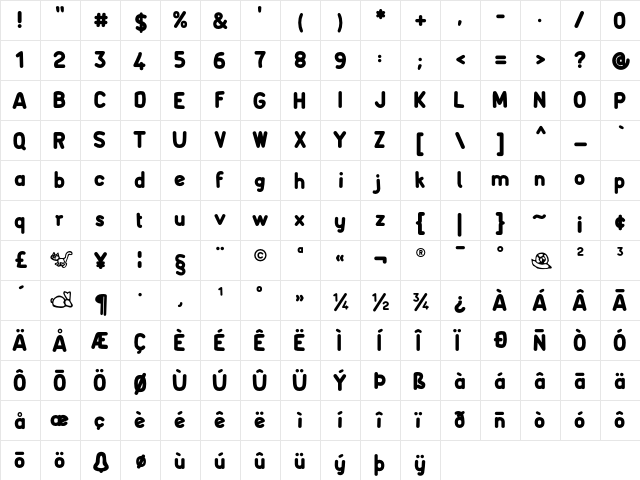
FontSoupGerman ExtraBoiled
Design Context for FontSoupGerman Typeface
FontSoupGerman is a composed and adaptable typeface that performs quietly and consistently across a wide range of design contexts.